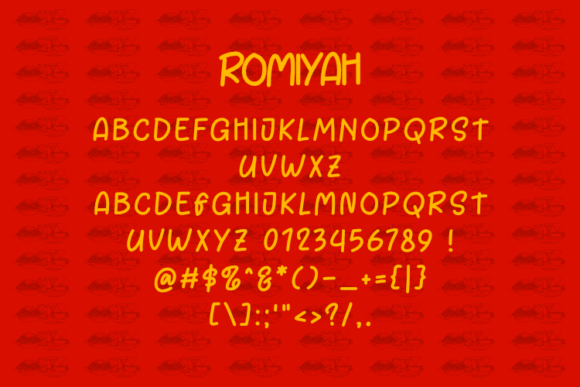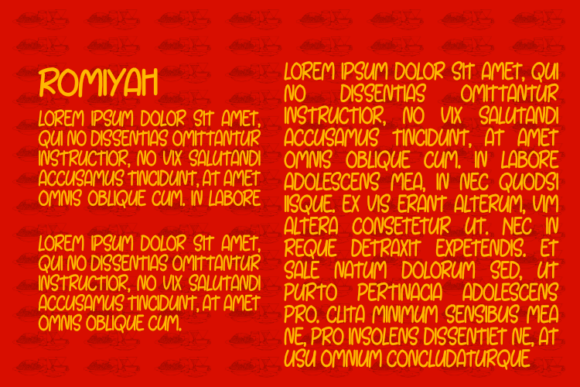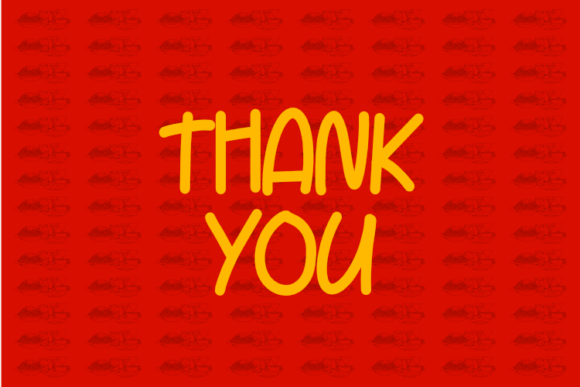
Introduction to Romiyah Font
Introducing Romiyah, the versatile font with limitless potential.
Perfect for bringing a touch of creative flair to apparel like t-shirts and other designs, Romiyah infuses each style piece with distinct textural expressions It harmonizes seamlessly with every type of software and comes in both OTF and TTF formats, offering versatile adaptability for diverse design avenues.
Why Choose Romiyah Font?
Romiyah Font offers exceptional quality and versatility, making it a valuable addition to your design toolkit. Whether you’re creating for personal projects or commercial use, Romiyah Font delivers professional results.